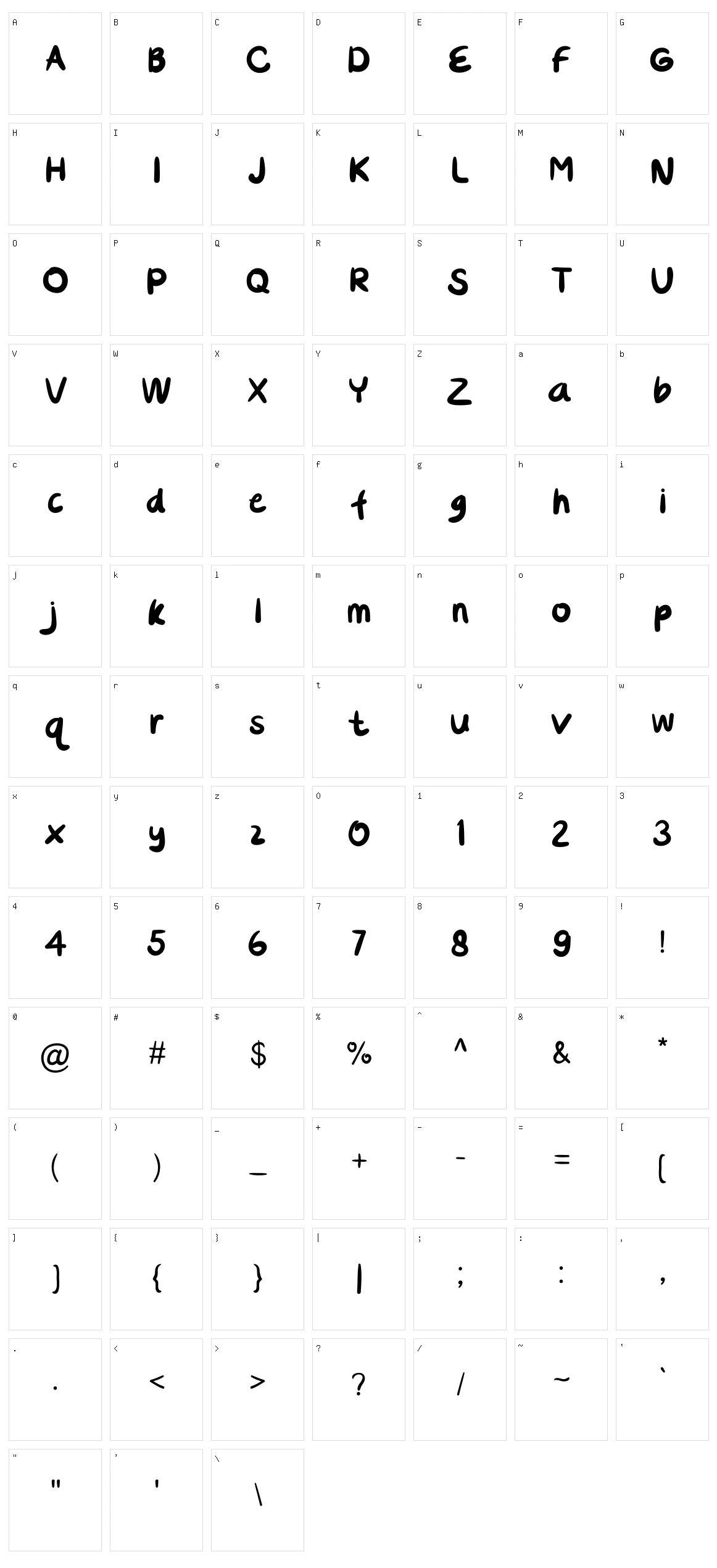
The free font Cutes is carefully designed by thoxponizeo, showcasing a thoughtful balance of creativity and usability and falls under the Script font style. When you download the ZIP file, it contains only 49.39 KB of font files, making it lightweight and quick to download. Please review the license details below to understand permitted usage and distribution rights. If license information is not available, we recommend using this font for personal projects only or contacting the author directly for commercial usage permissions.